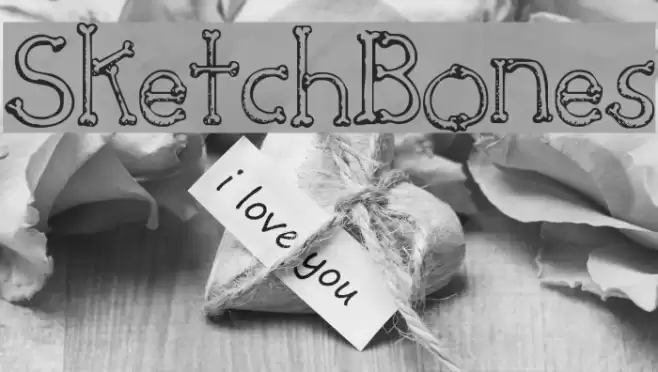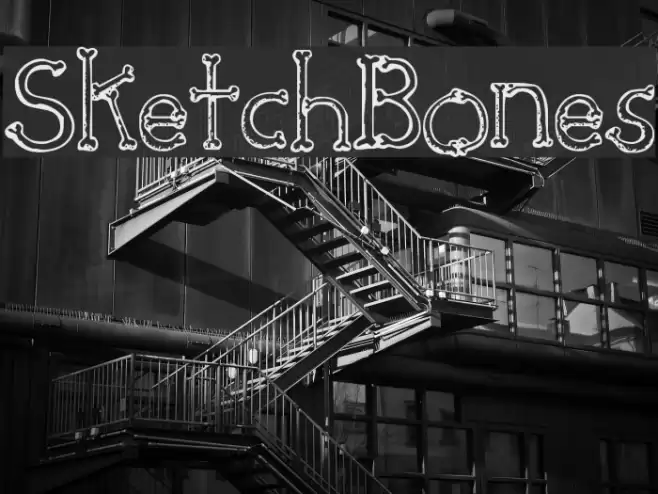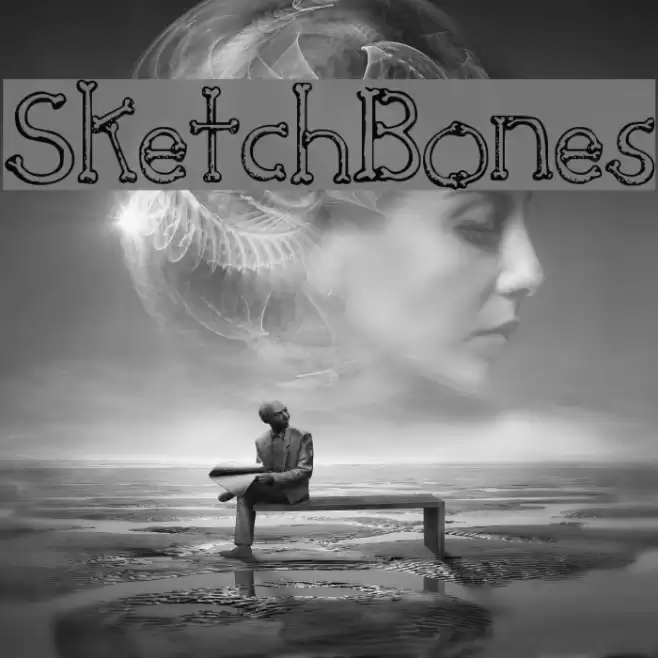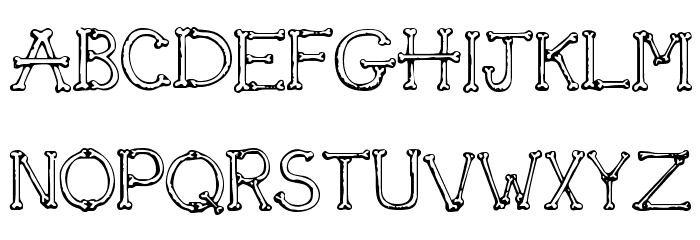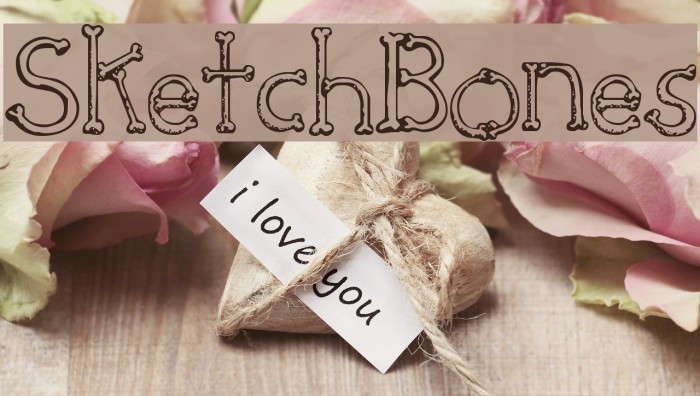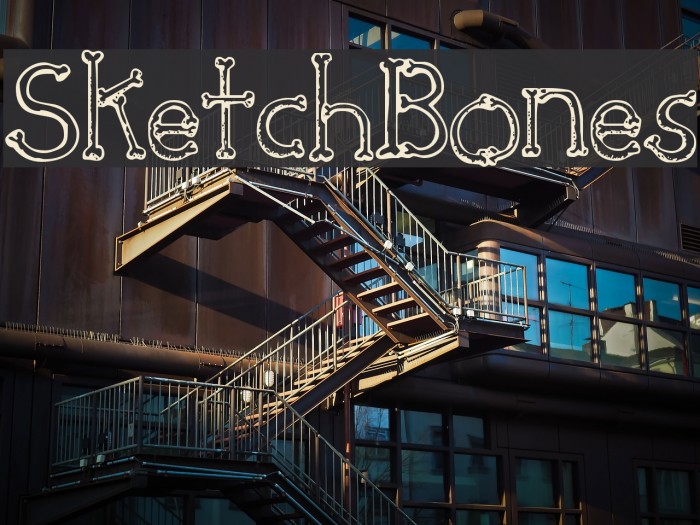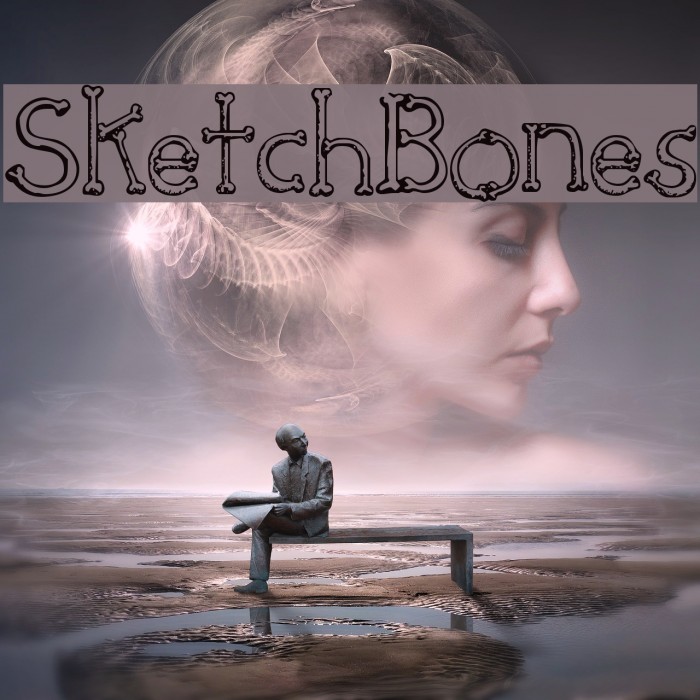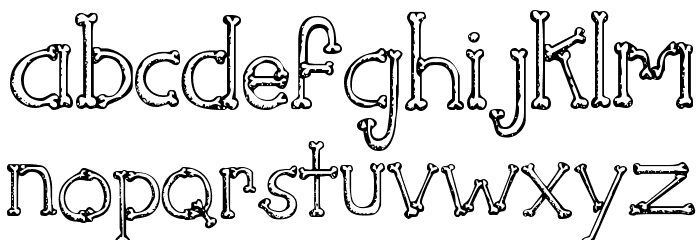
SketchBones Font
SketchBones Description
This font features a playful and unique design where each character is crafted to resemble a series of bones. The skeletal structure gives it a whimsical and slightly eerie appearance, making it perfect for themes related to Halloween or anything spooky. The letters maintain a consistent thickness, with rounded ends that mimic the look of joints. This font is highly decorative and stands out due to its distinctive style, which is both creative and eye-catching.
A playful, bone-themed decorative font ideal for spooky designs from Uncategorized fonts.
- Proposed Projects: Ideal for Halloween-themed posters, party invitations, children's books with a spooky theme, and creative logos.